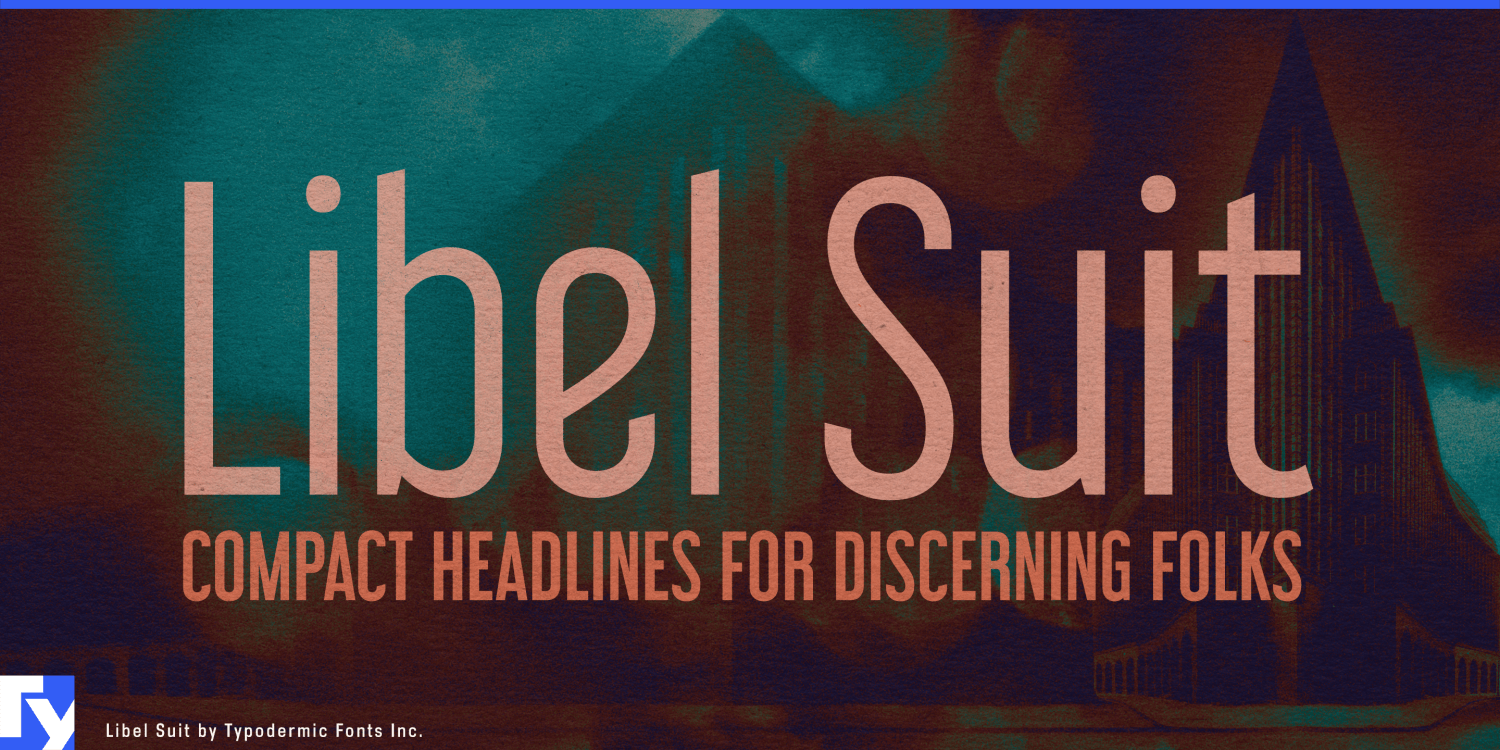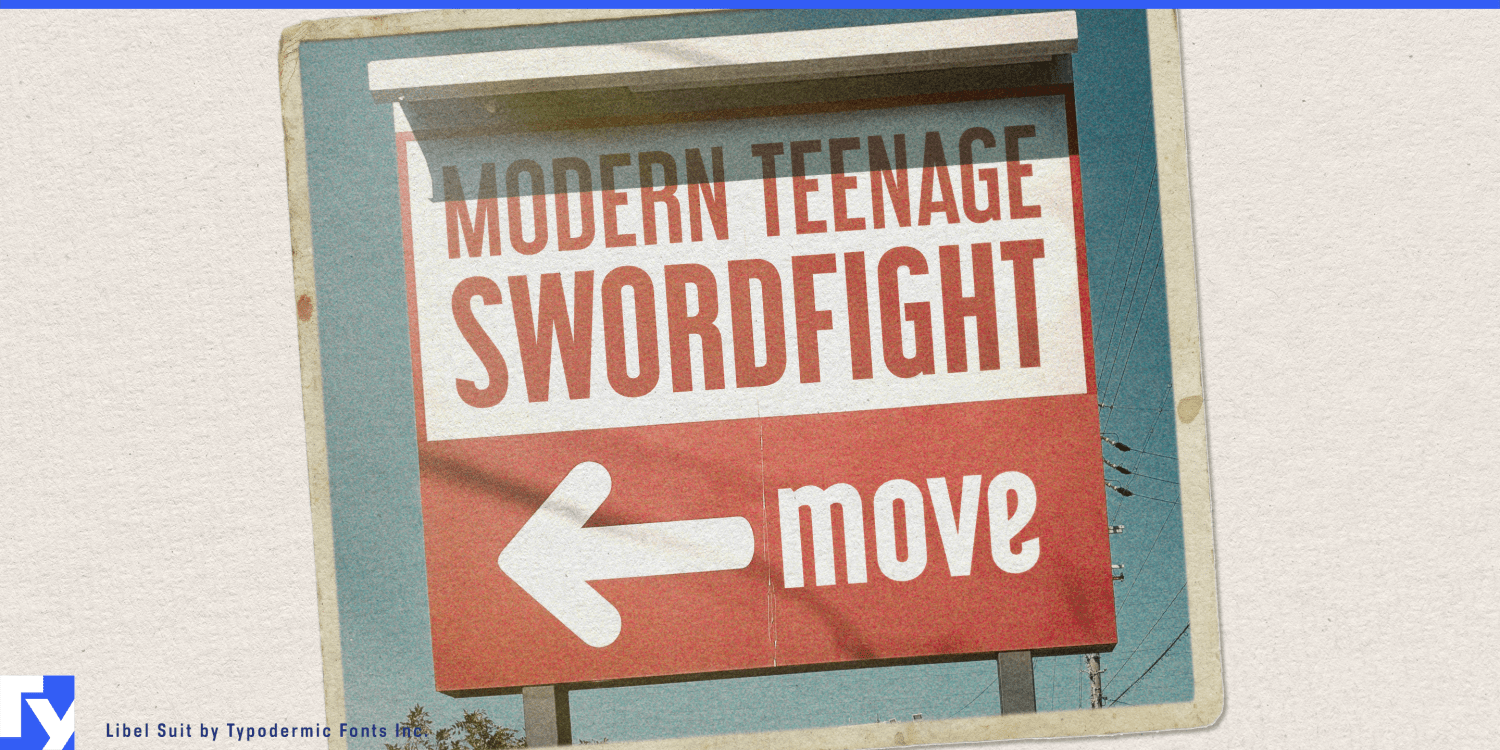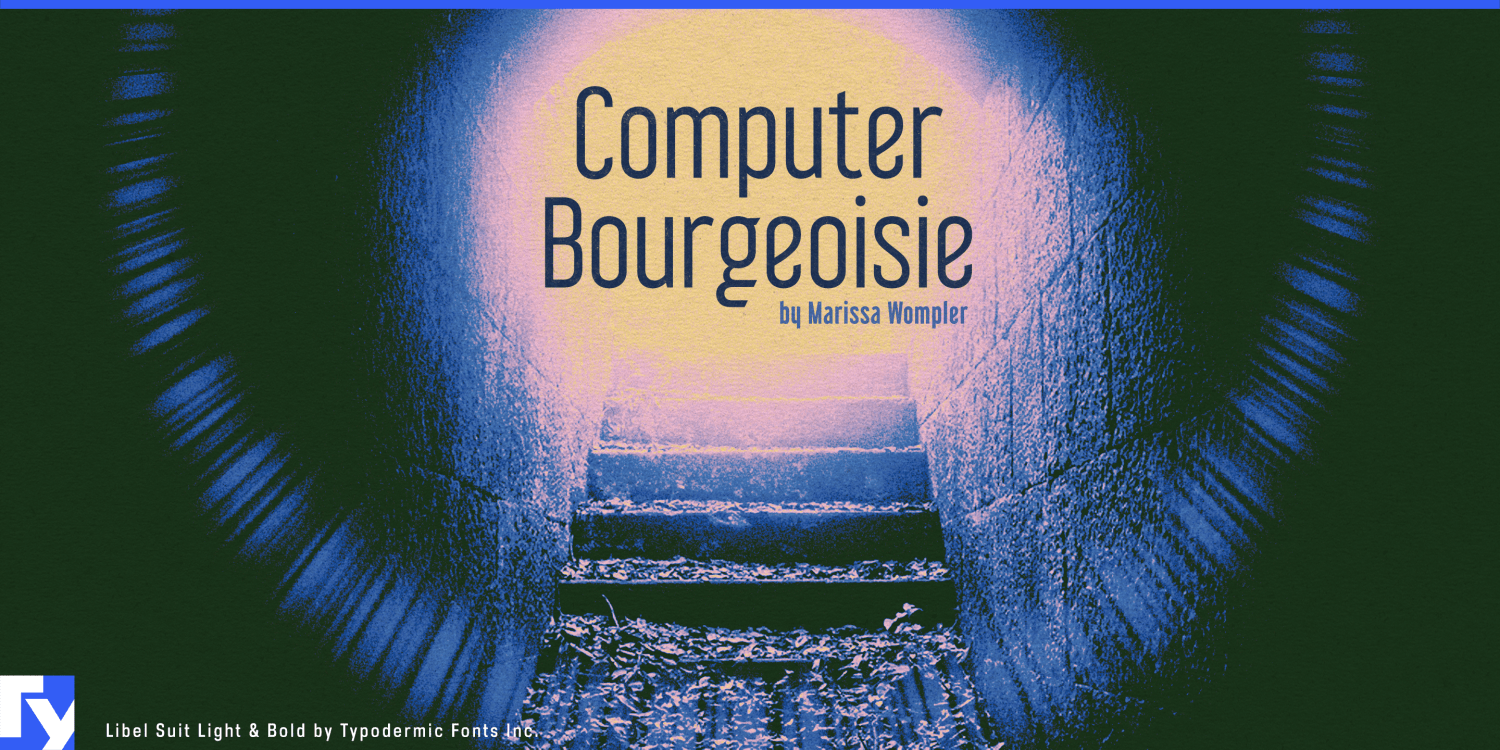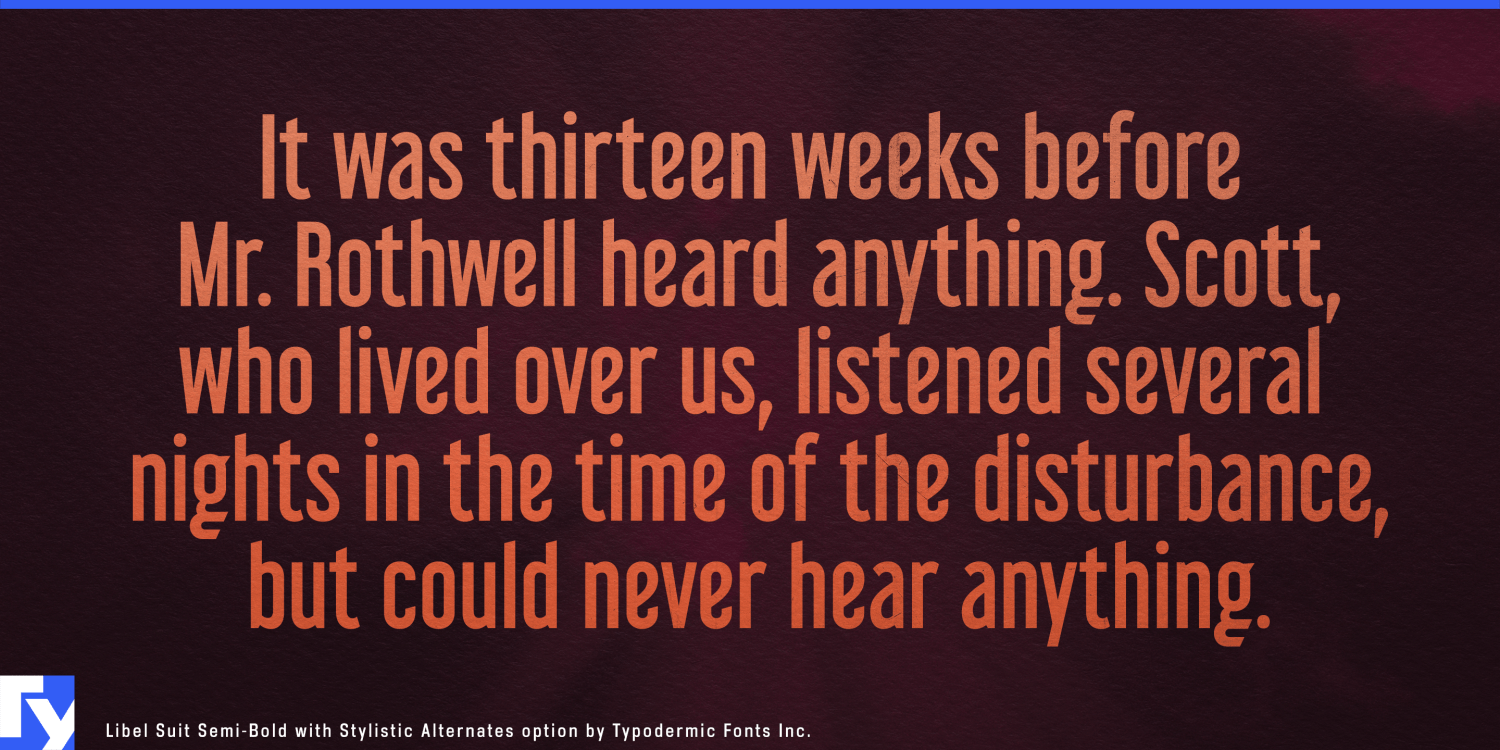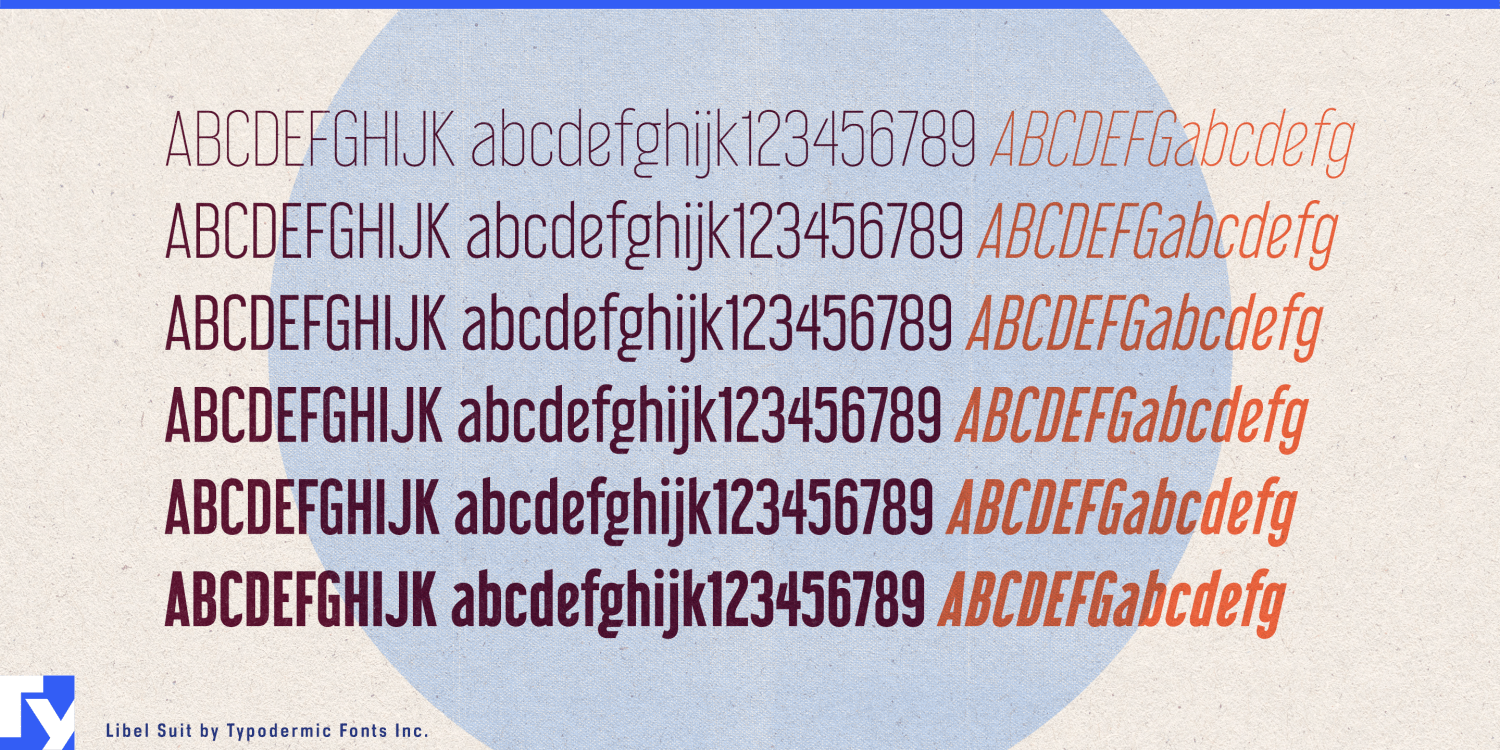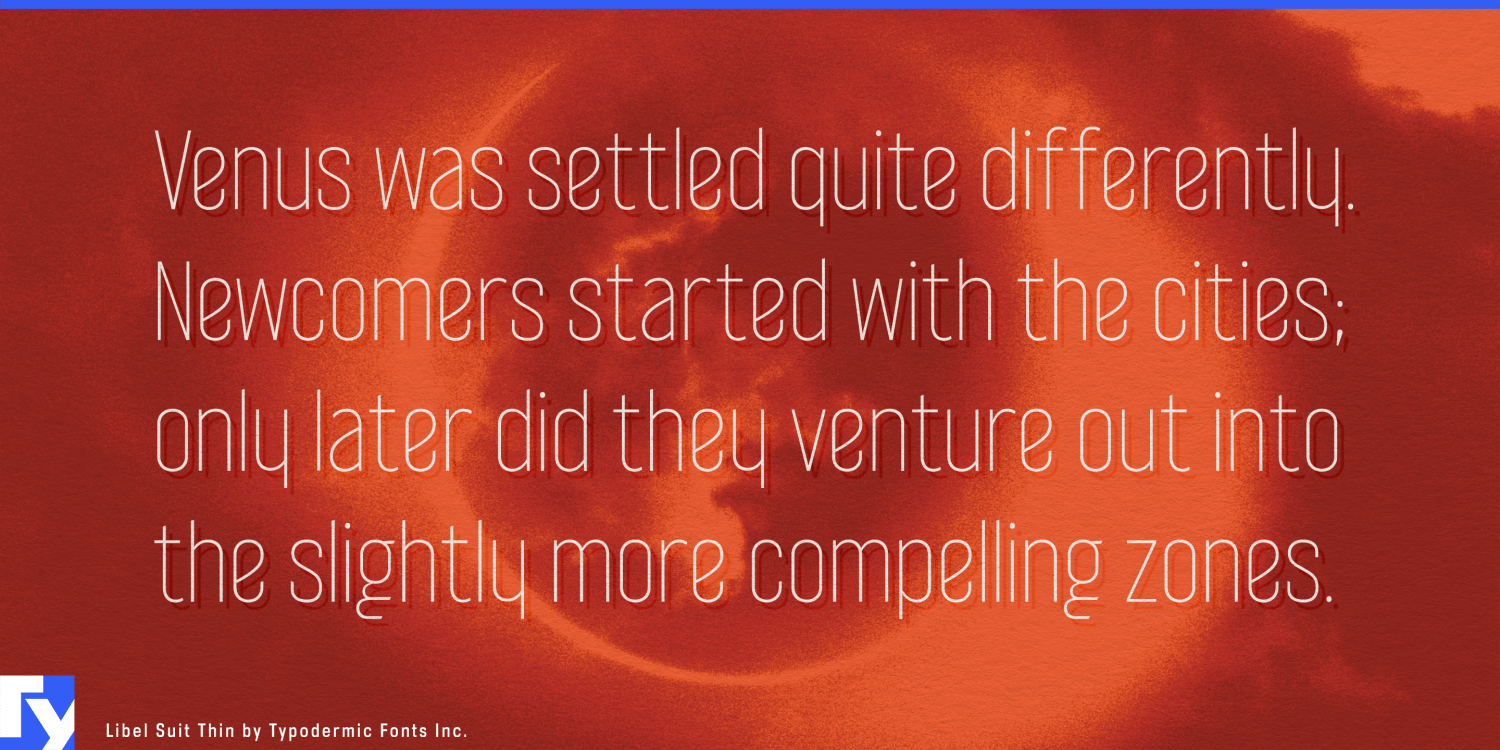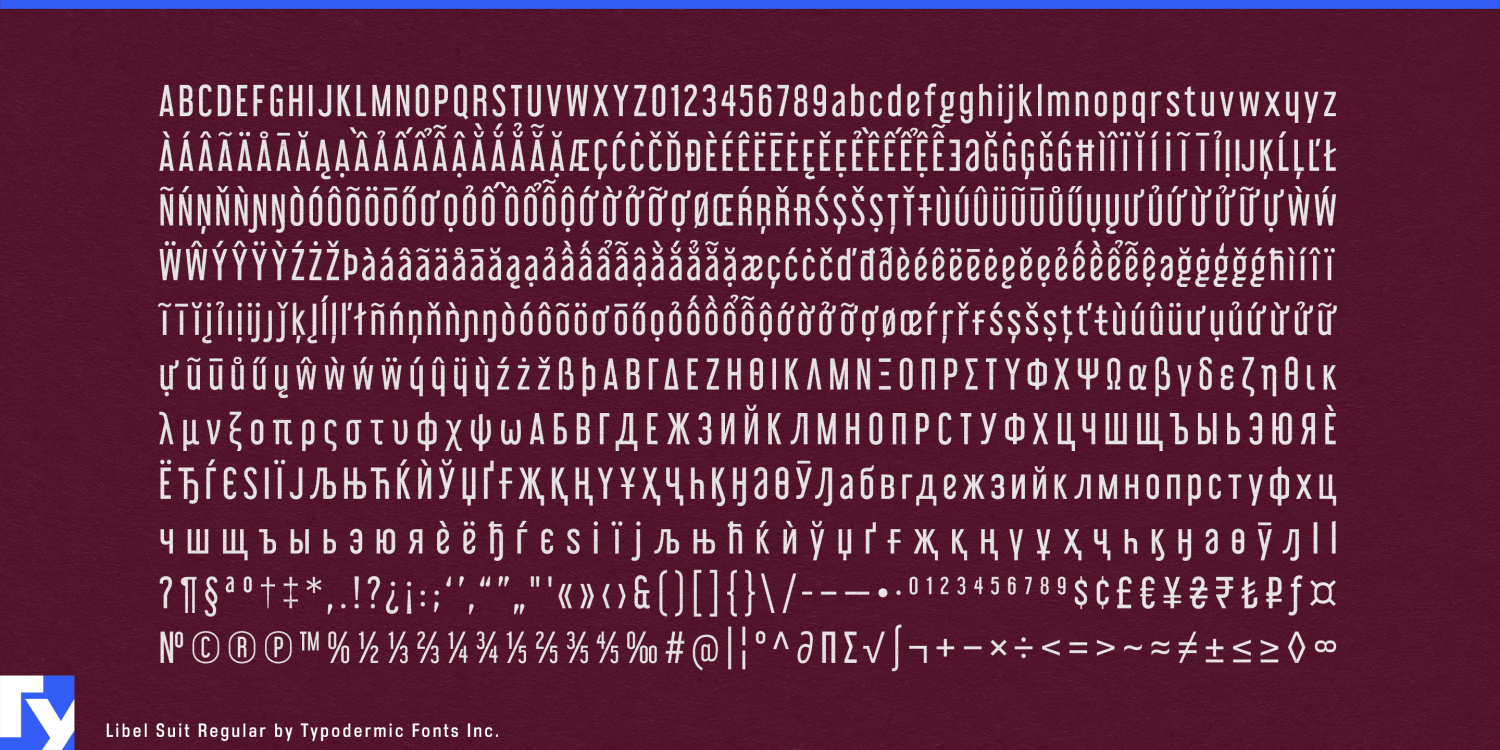
Libel Suit
Libel Suit is a compact sans with an architectural sense of order. Its flat-sided construction and narrow proportions conserve horizontal space, while diagonal stroke endings, unusual joins, and a distinctive lowercase keep it from becoming anonymous utility typography. Lighter weights feel restrained and structural; heavier styles bring the underlying geometry forward without turning the family into a heavy industrial face.
That balance makes Libel Suit particularly useful for architectural products and building systems. Commercial lighting, elevator systems, access control, architectural hardware, façade products, acoustic systems, smart-building controls, workplace equipment, and commercial HVAC technology all need typography that can sit comfortably between engineering and design. Libel Suit can handle product-series names, control-panel graphics, catalogue headings, showroom displays, specification covers, and trade-fair graphics.
Large developments create a related problem at a different scale. Mixed-use districts, transit-oriented developments, research campuses, airport precincts, university expansions, and major residential projects often have long building names, zone names, and programme titles competing for limited space. Libel Suit’s narrow structure helps those names retain scale across building identifiers, leasing graphics, directories, construction hoardings, presentations, and environmental graphics.
Transportation environments offer another natural role. Station names, concourse headings, platform-zone identifiers, airport terminal graphics, parking structures, passenger-facility branding, and rail-service campaigns all benefit from display typography that can remain prominent within rigid architectural layouts.
Urban technology extends the same visual language into the infrastructure of the late 2020s and 2030s. Fare systems, smart parking, EV fleet depots, access gates, curb-management systems, passenger-information hardware, public charging equipment, traffic-management systems, and municipal sensors all occupy a space between civic architecture and technical hardware.
Architecture, engineering, and urban-planning consultancies can also use Libel Suit for competition boards, masterplans, infrastructure proposals, planning reports, sustainability strategies, public-consultation displays, and presentation decks. Its condensed structure solves a practical space problem; its unusual corporate-modern details keep the result from looking merely compressed.